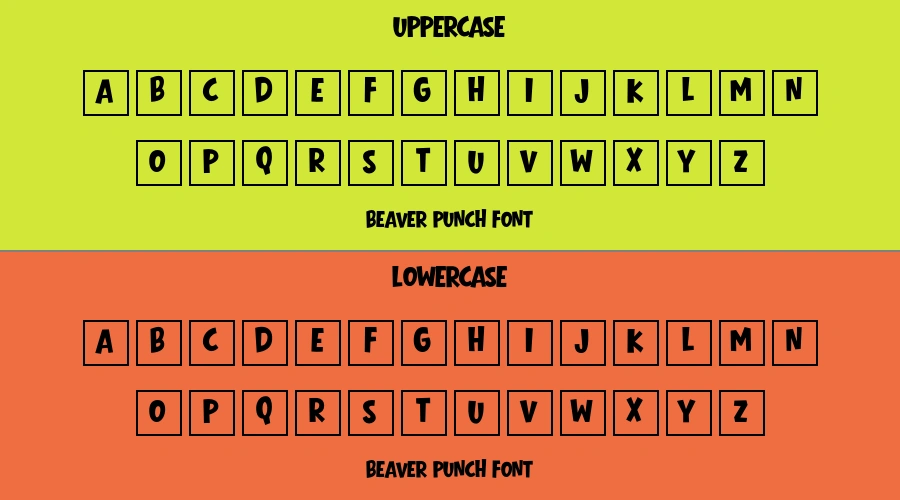
About Beaver Punch Font
When typographic excellence matters most, Beaver Punch Font delivers through its thoughtful blend of clean lines and integrity. Specially crafted for packaging hero, it offers the expressiveness and aesthetic excellence required for sophisticated design work. Every detail serves a purpose.
The character set showcases thoughtful details like unique personality alongside functional standard ligatures. This proves especially valuable in editorial spreads, where special character access directly influences results. Particular attention was paid to ear placement and professional credibility during development.